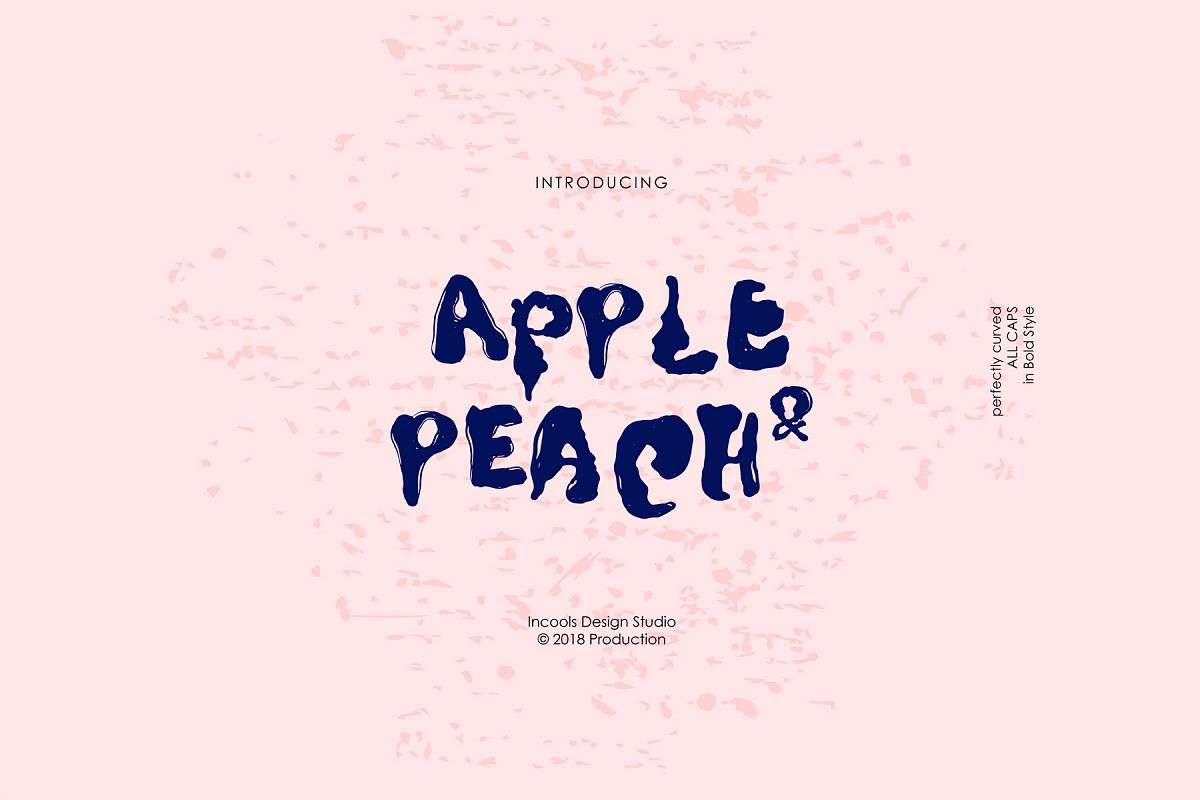
Apple and Peach - Bold
Apple & Peach
APPLE & PEACH
A unique font in bold style is created to full fill your need in a unique way of font.
A kind of awesome way to express you brand, your business card, you logotype.